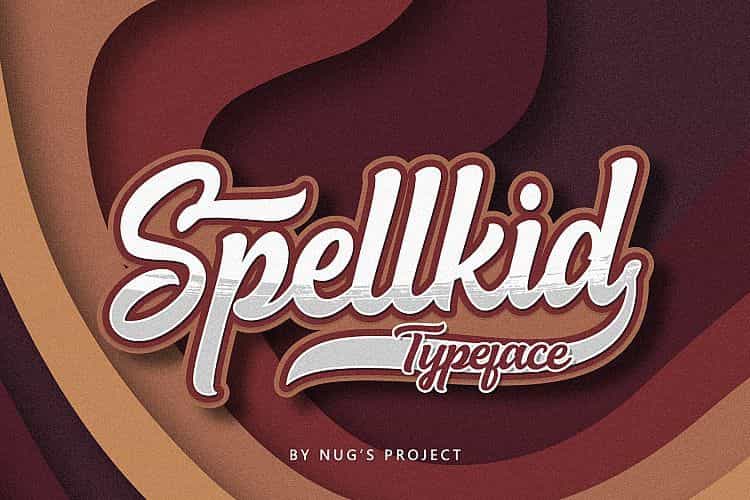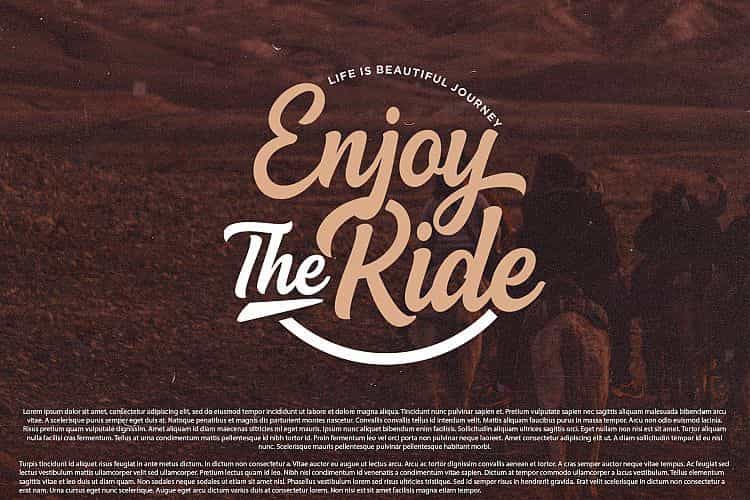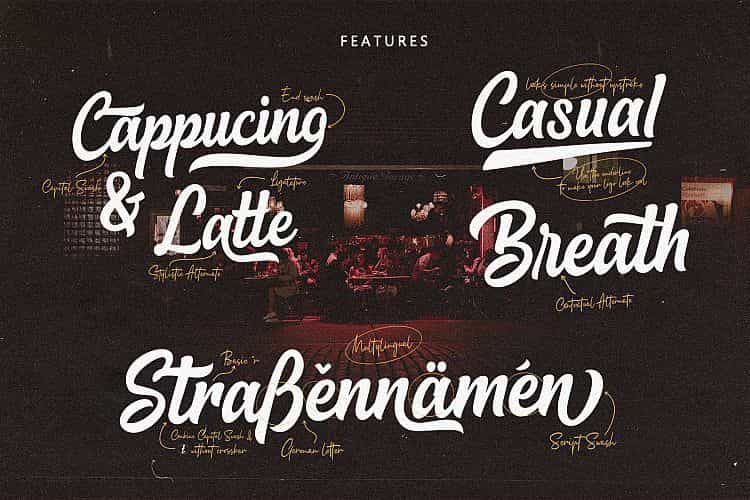
Introducing Spellkid Font. It is quite an edgy script with clean lines and a nice smooth curve which is combined with the nice features here! This is a stylish script font that will suit logo design, branding, clothing design, signs, posters, wedding invitations and many other projects!